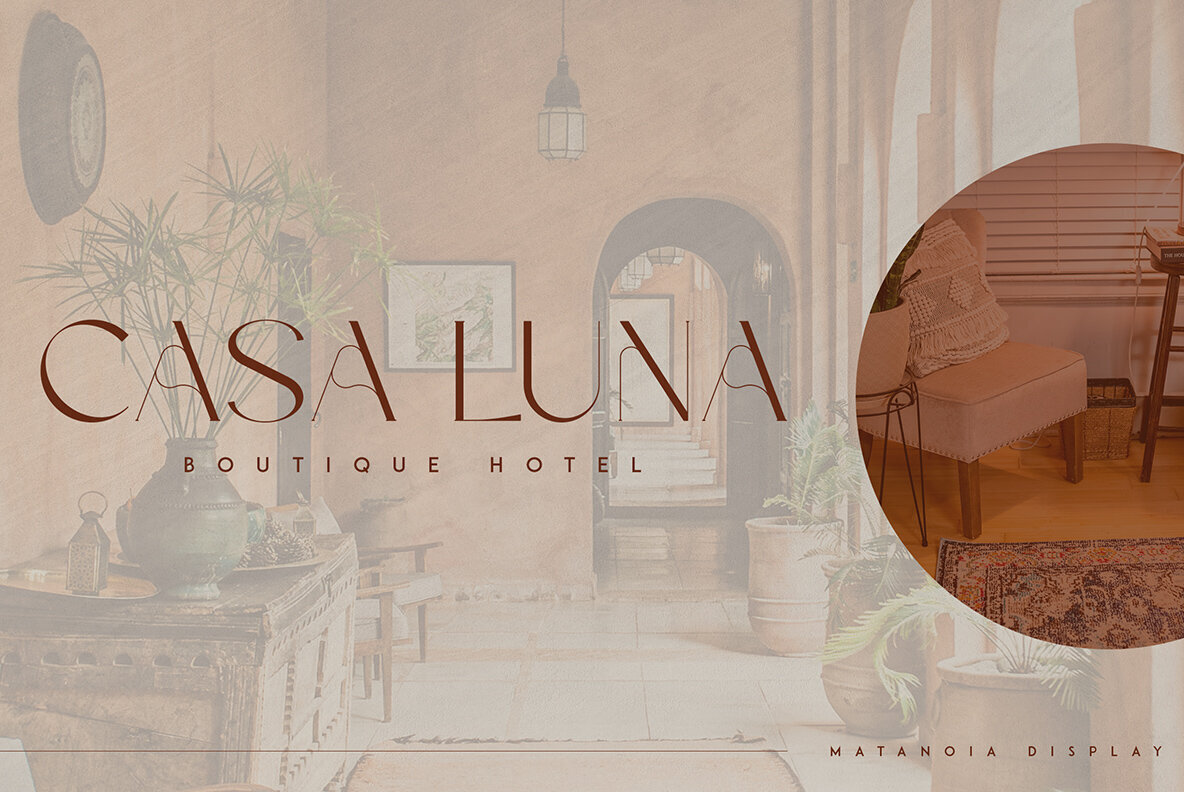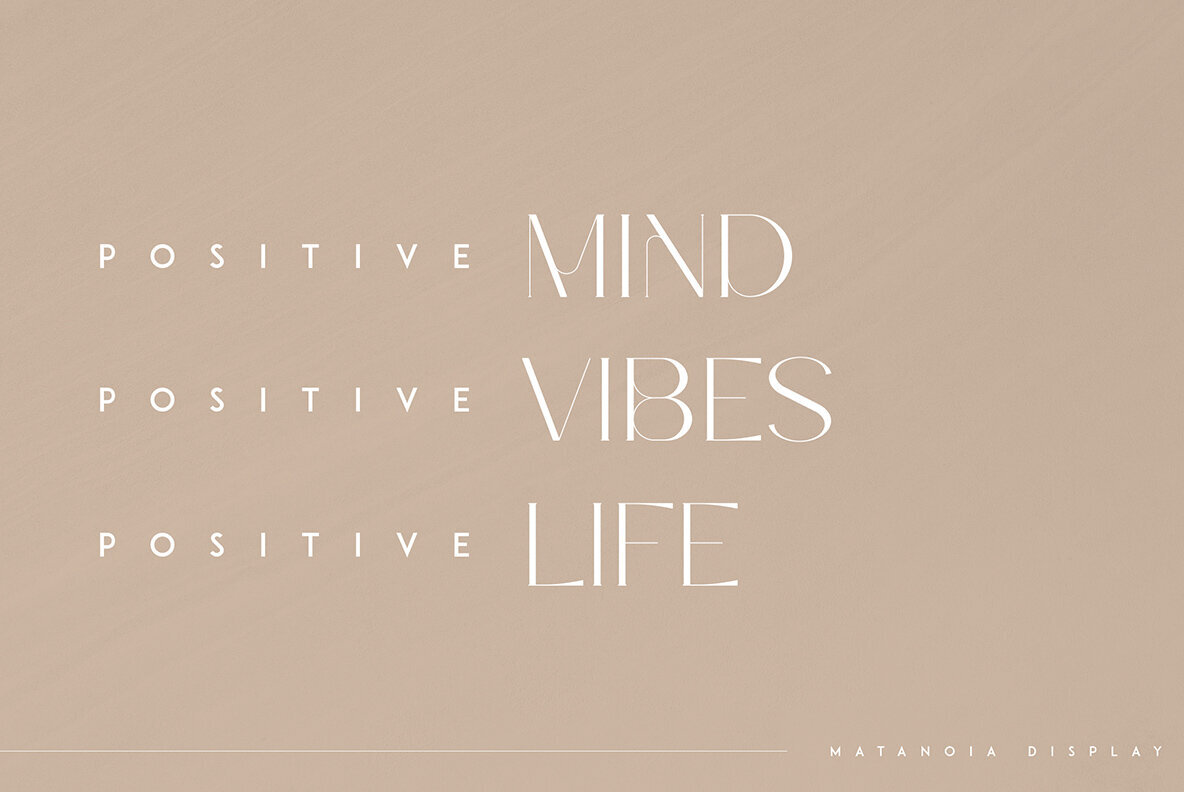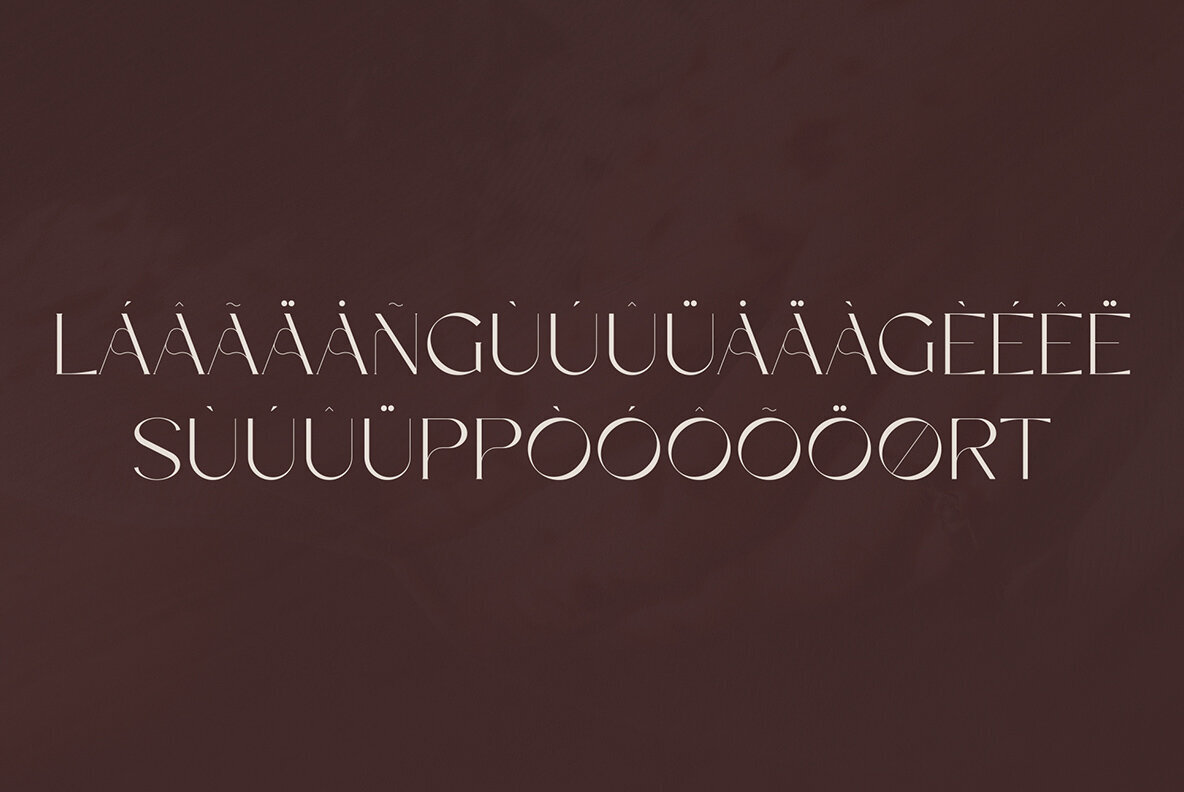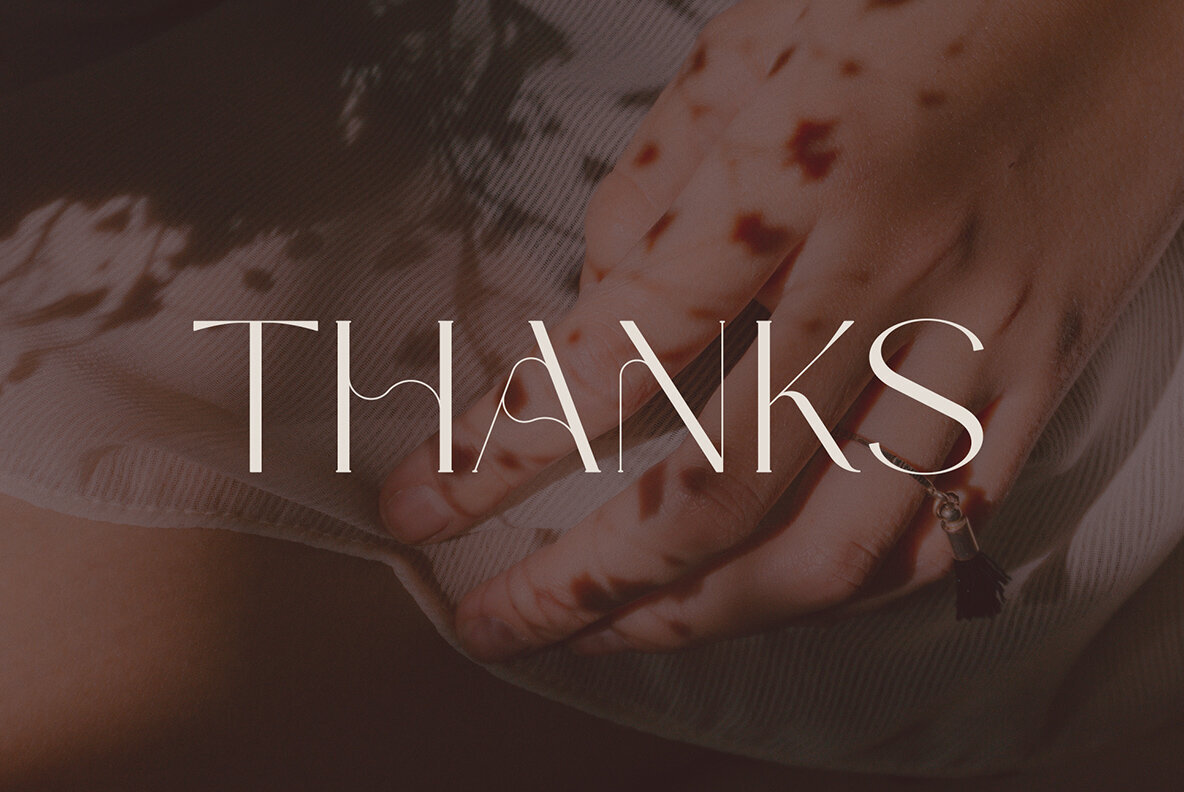
Metanoia Font
Metanoia
Metanoia offers a blend of creativity and elegance, making it an ideal choice for those in search of a versatile display font. Its adaptability across various sizes ensures that it suits both expansive branding projects and intricate designs alike. Whether applied to product packaging, magazine headers, or as a text overlay on images, Metanoia stands out with its refined presence.Metanoia: Creative Display Font With Multilingual Support